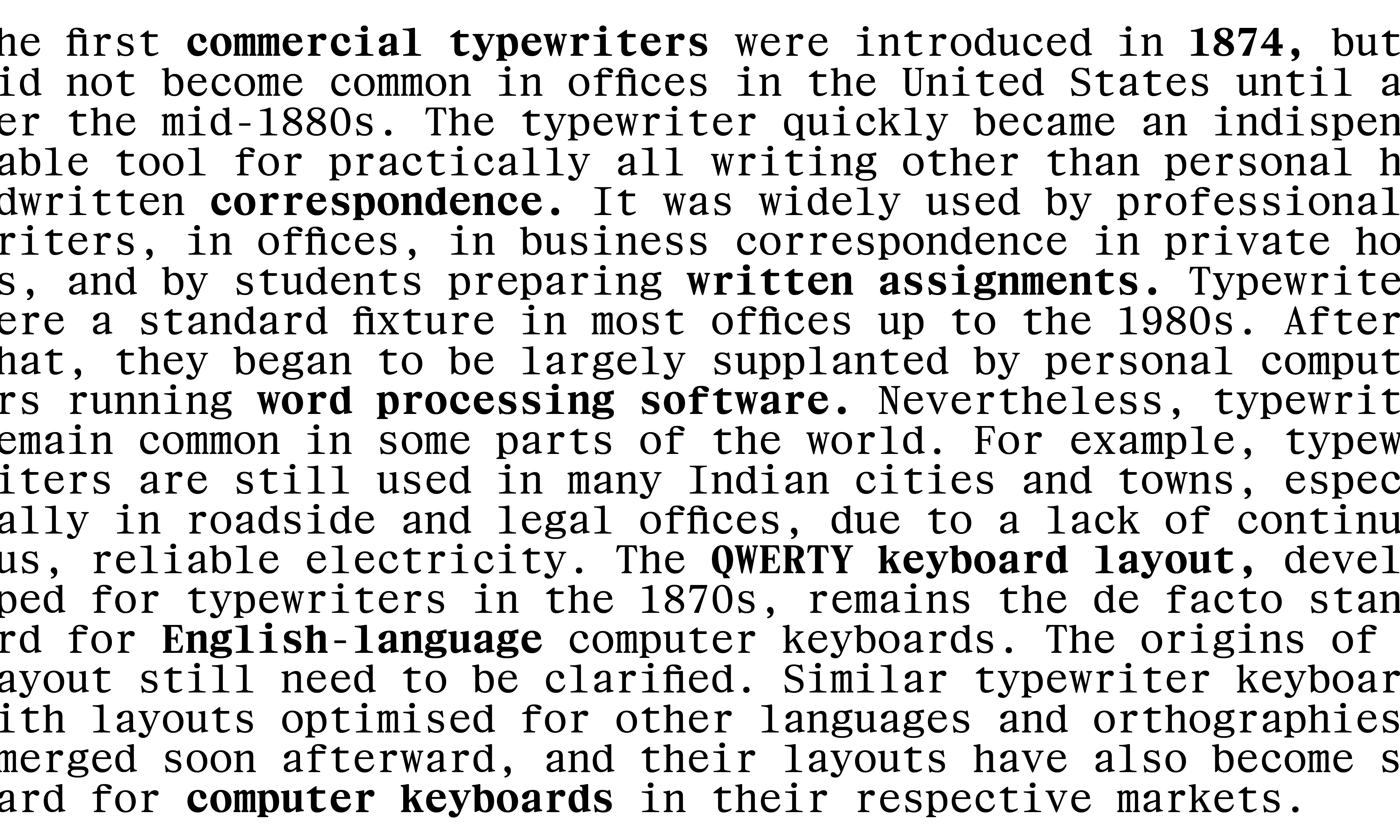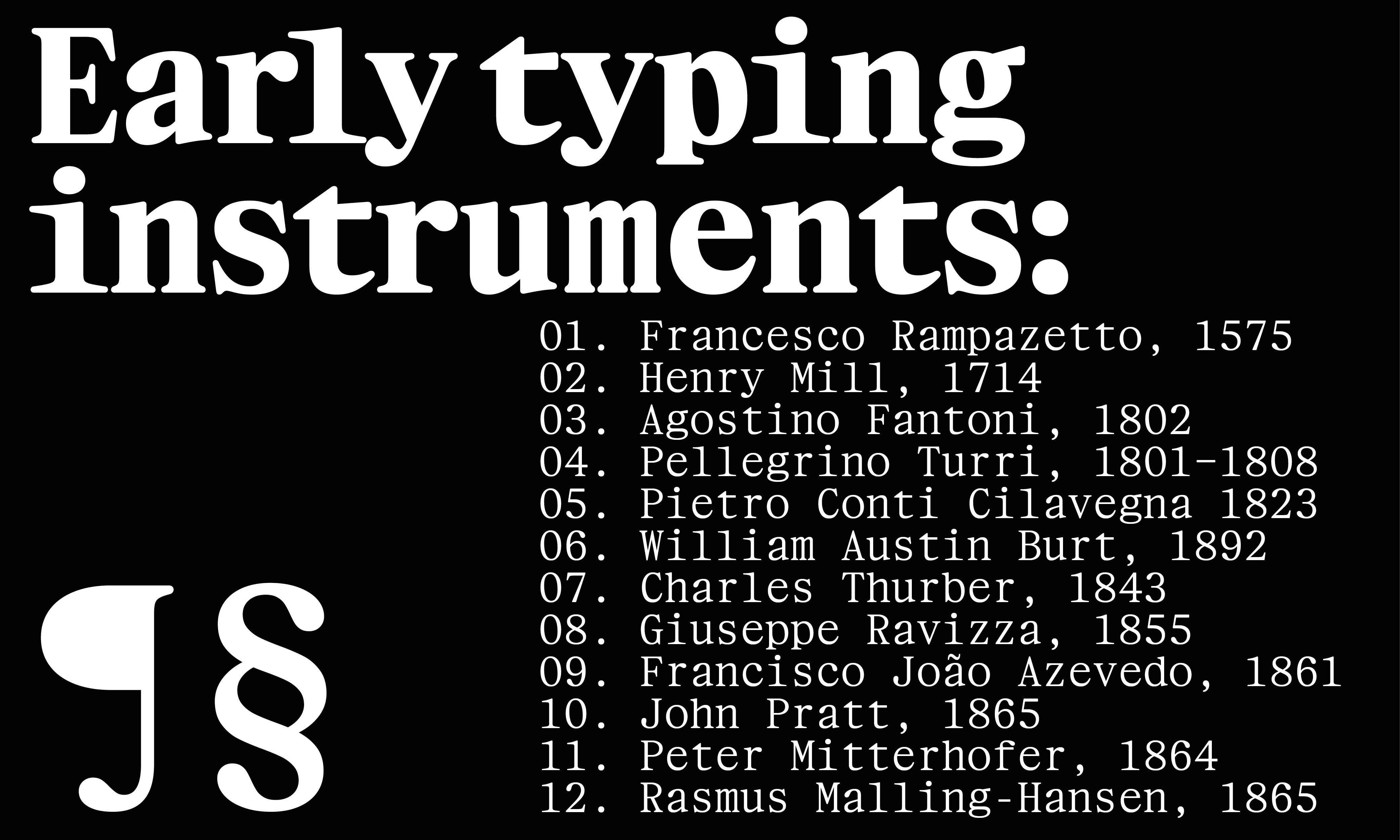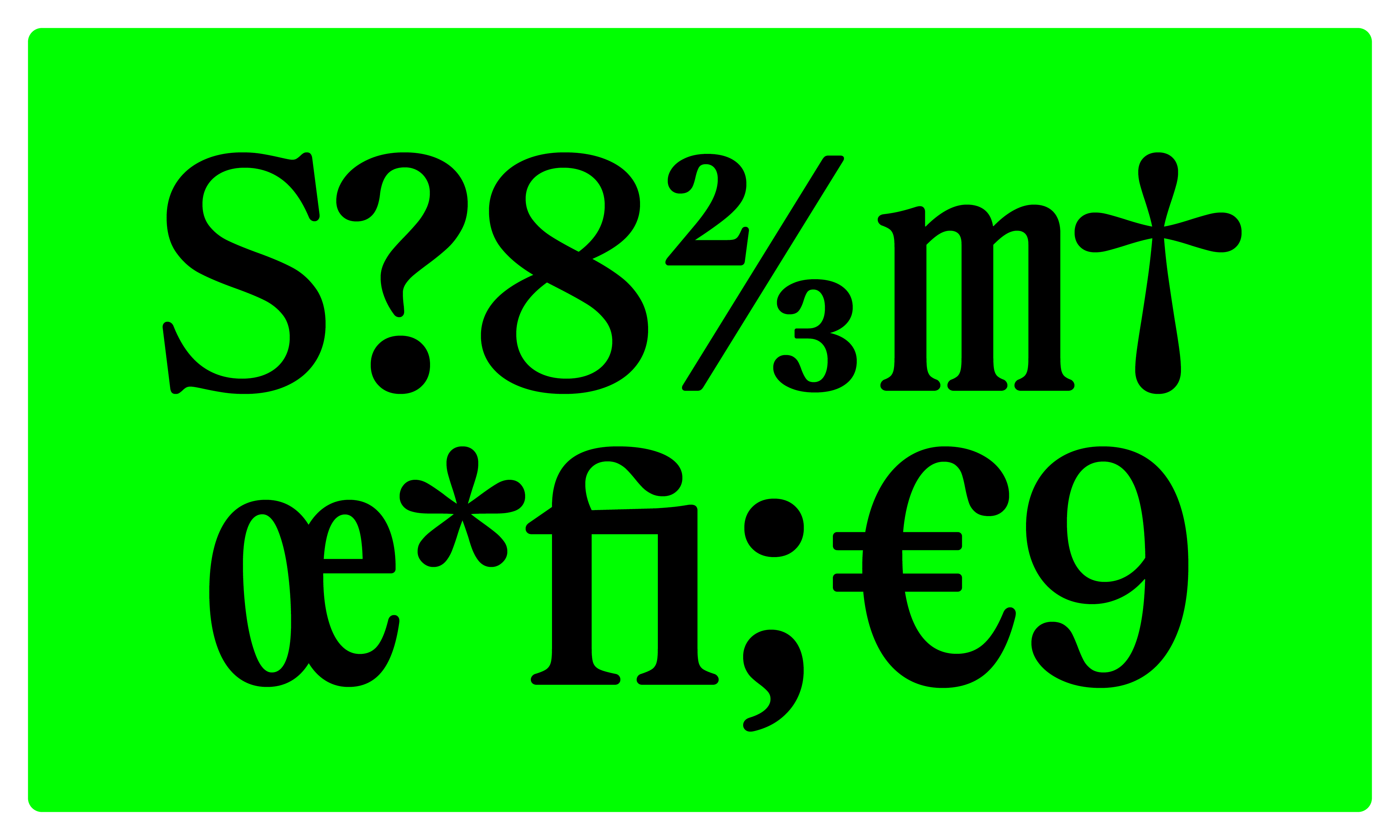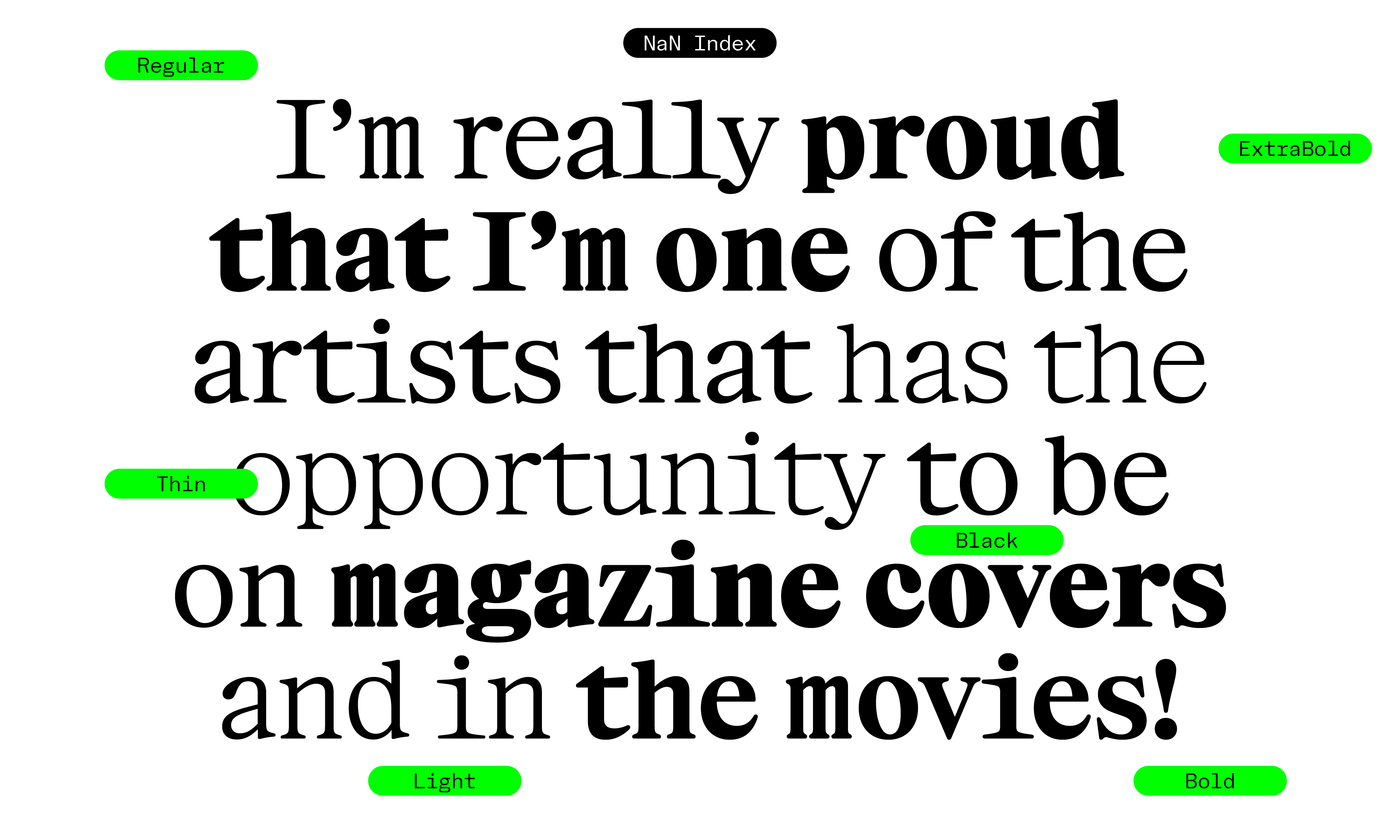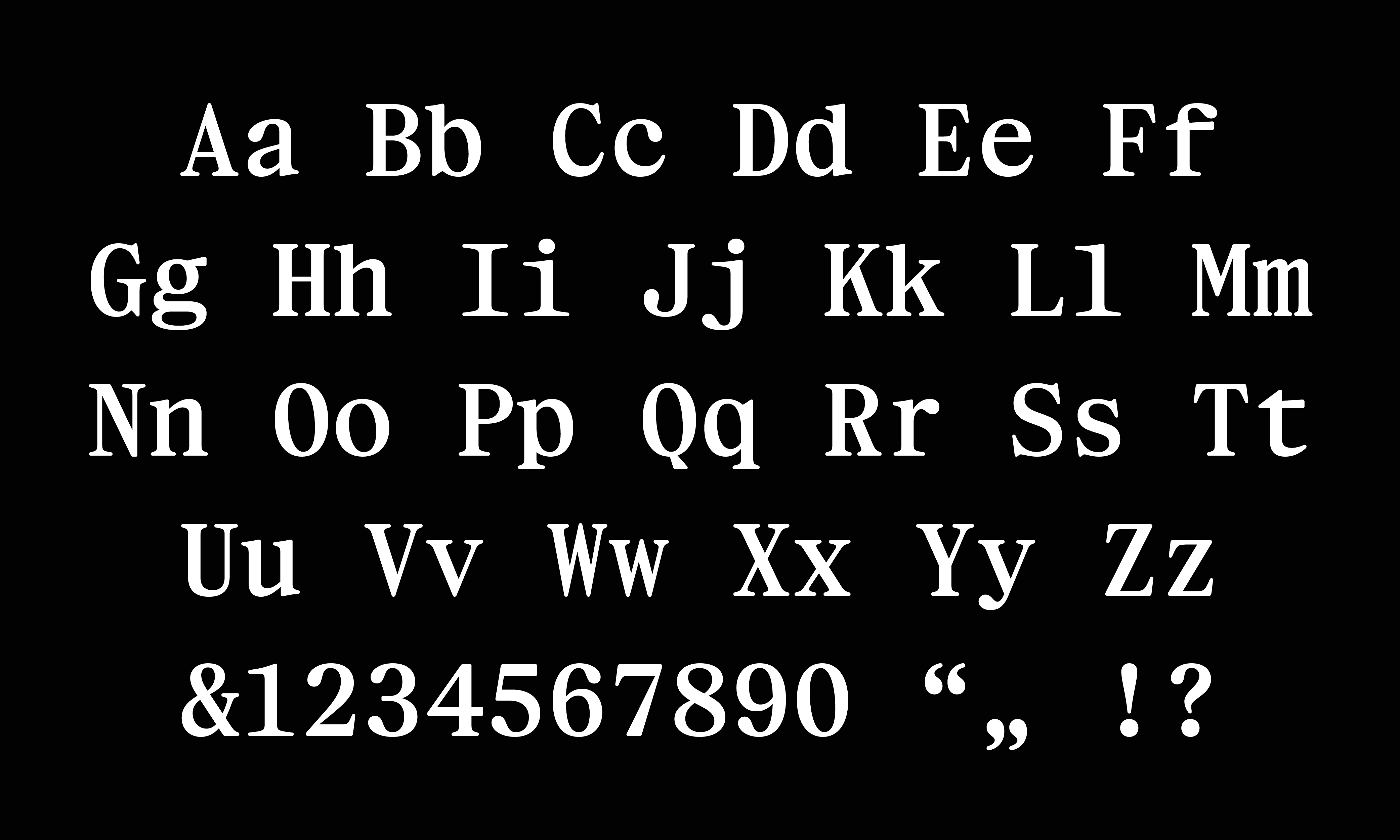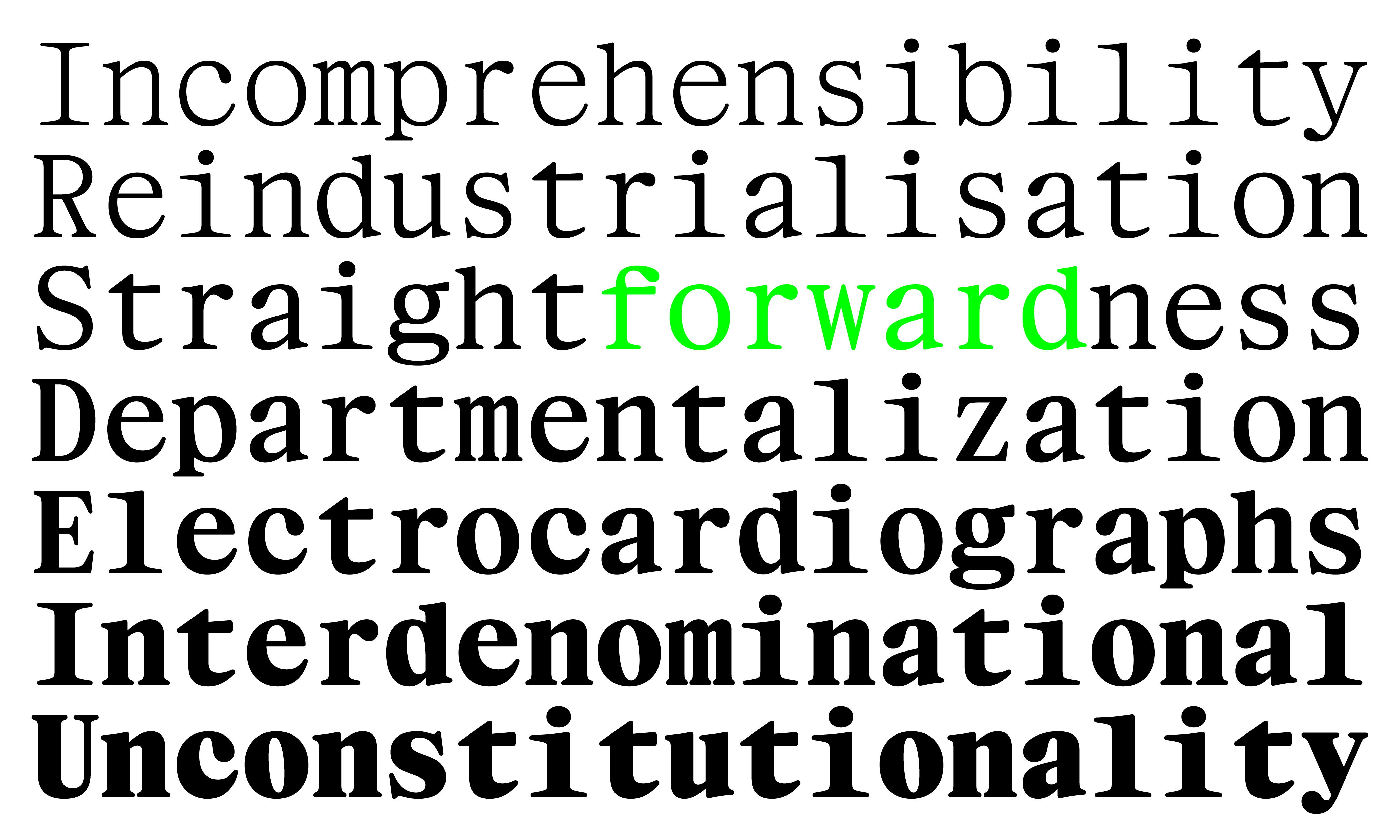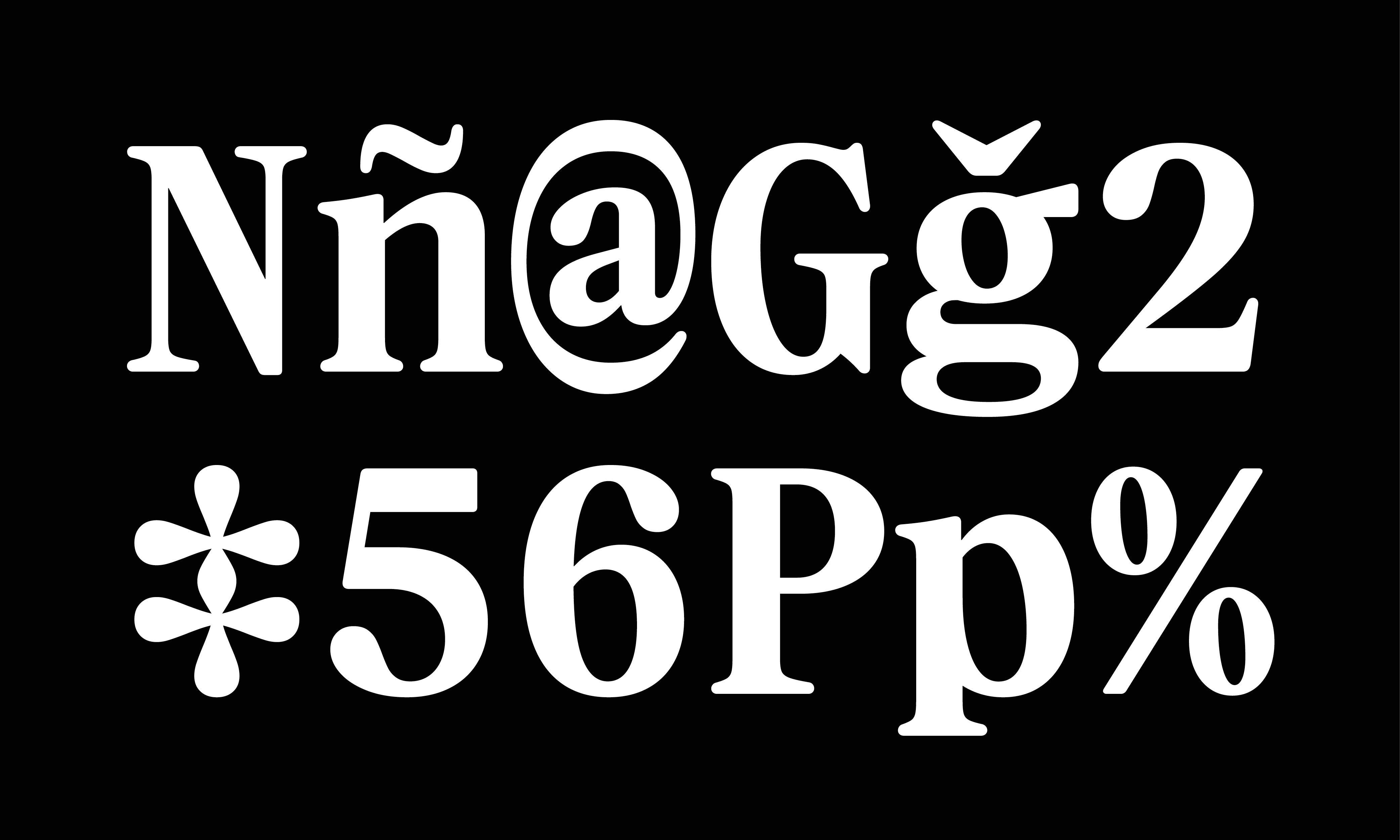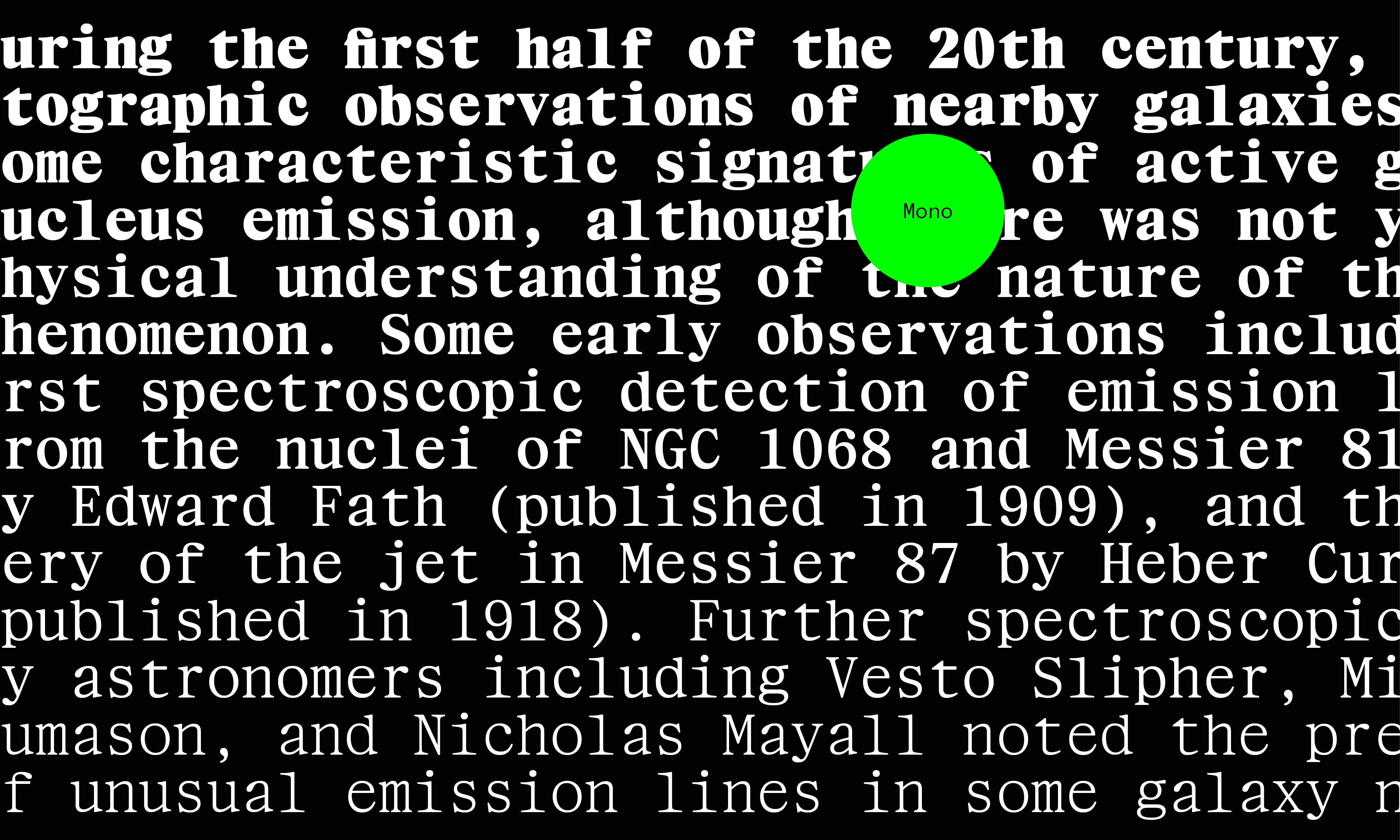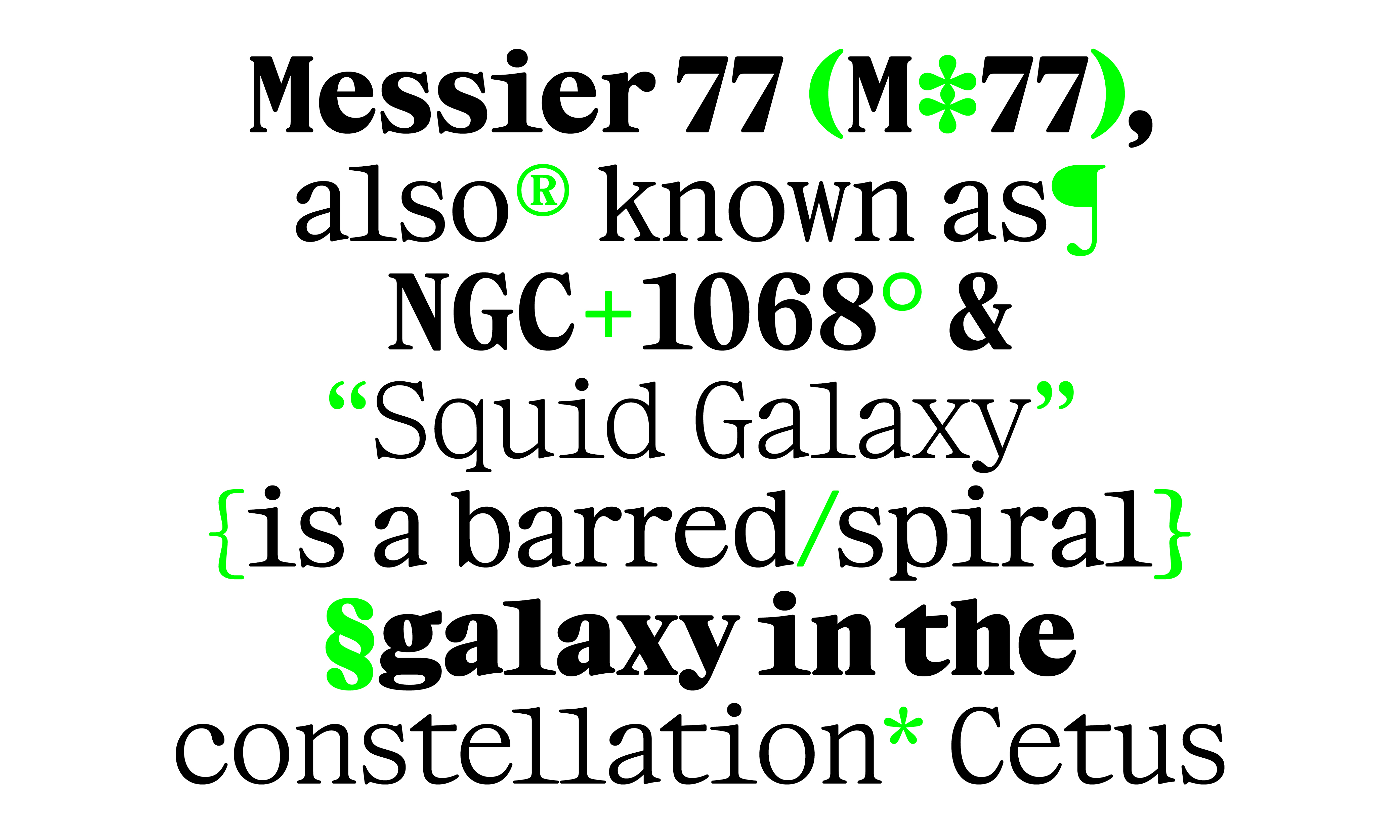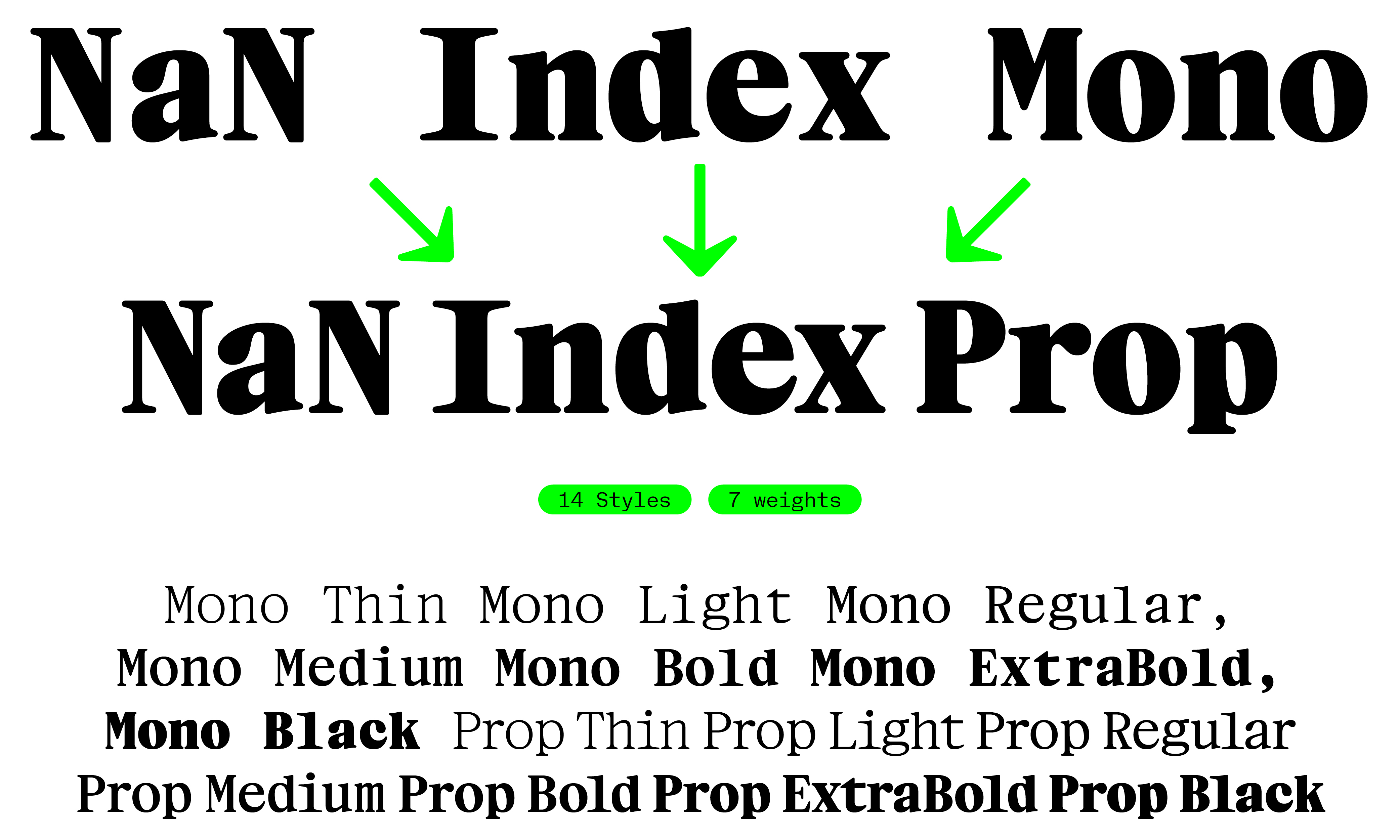
NaN Index family
NaN Index Prop
NaN Index, a soft proportional + monospace family, utilitarian yet elegant.
NaN Index Prop OpenType Features
- Fractions (on) (off) 13/57
- Oldstyle Figures (on) (off) 0123456789
- Ordinals (on) (off) 1o 2a
- Scientific Inferiors (on) (off) 0123456789
- Subscript (on) (off) abc123
- Superscript (on) (off) abc123